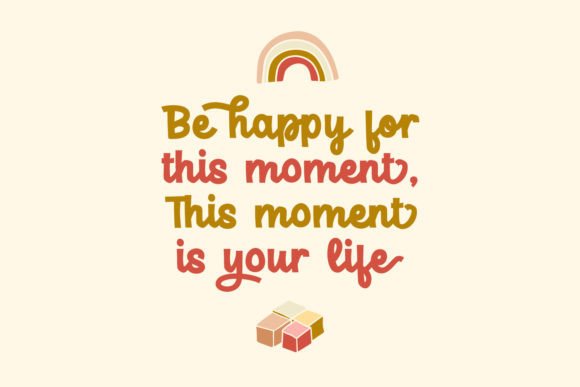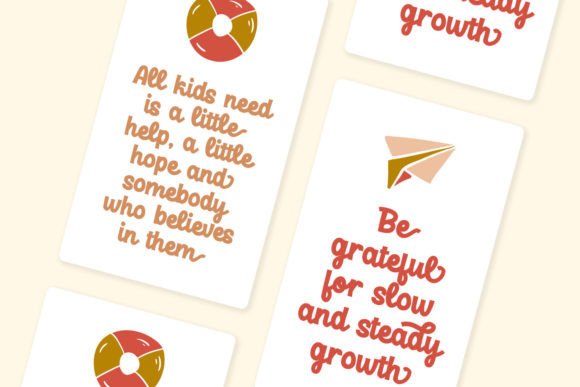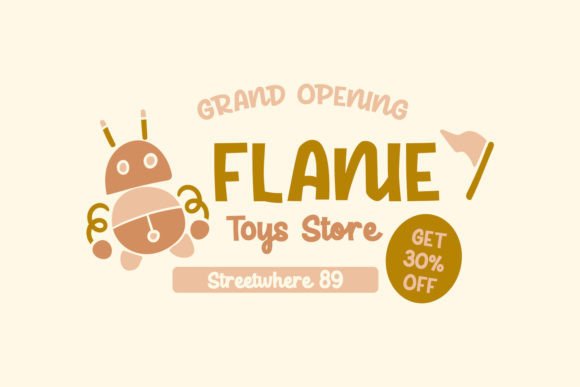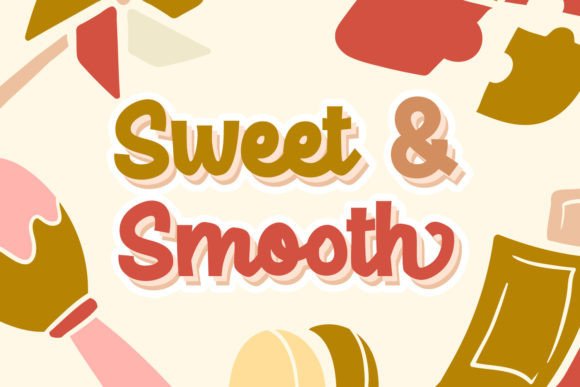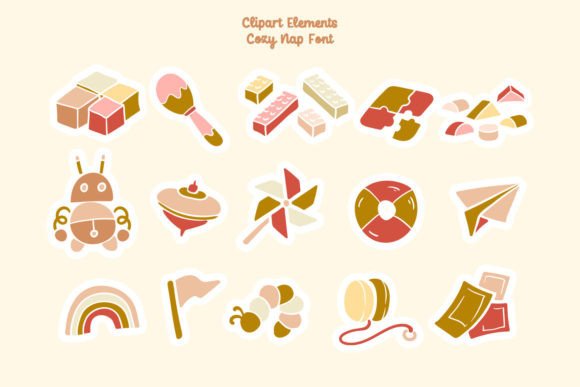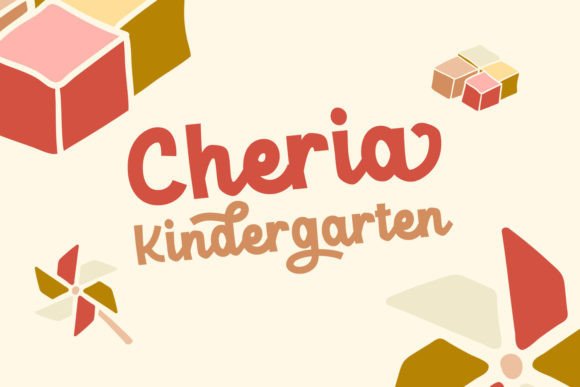
Introducing Cozy Nap Font: The Ultimate Display Font for Creative Projects
Are you tired of using the same old fonts for your creative projects? Look no further than Cozy Nap Font, a charming display font that’s perfect for adding a touch of whimsy to your designs. With its dramatic bold and heavy styles, Cozy Nap Font is ideal for use in headers, titles, and other display text. But what really sets it apart is its unique blend of readability and cuteness.
The Characteristics of Cozy Nap Font
Cozy Nap Font is a carefully crafted display font that boasts a range of characteristics that make it perfect for creative projects. Here are just a few of its standout features:
- Dramatic bold and heavy styles: Cozy Nap Font’s bold and heavy styles make it perfect for use in headers and titles, where you want to grab the reader’s attention.
- Easy to read: Despite its bold and heavy styles, Cozy Nap Font is surprisingly easy to read, making it perfect for use in a variety of creative projects.
- Curvy characters: Cozy Nap Font also features a range of curvy characters that add a touch of cuteness to your designs.
- Illustrations as extras: What really sets Cozy Nap Font apart is the inclusion of illustrations as extras. These can be used to add an extra layer of visual interest to your designs.
Why Designers and Crafters Love Cozy Nap Font
Cozy Nap Font has quickly become a favorite among designers and crafters, and it’s easy to see why. Here are just a few reasons why:
- Perfect for creative projects: Cozy Nap Font is perfect for use in a variety of creative projects, from crafting and scrapbooking to graphic design and digital art.
- Adds a touch of whimsy: Cozy Nap Font’s unique blend of bold and curvy characters adds a touch of whimsy to your designs, making them stand out from the crowd.
- Easily customizable: Cozy Nap Font is easily customizable, making it perfect for use in a variety of different design contexts.
- Includes illustrations: The inclusion of illustrations as extras is a major bonus for designers and crafters, who can use them to add an extra layer of visual interest to their designs.
How to Use Cozy Nap Font in Your Designs
Cozy Nap Font is a versatile display font that can be used in a variety of different design contexts. Here are just a few ideas to get you started:
- Headers and titles: Cozy Nap Font’s bold and heavy styles make it perfect for use in headers and titles, where you want to grab the reader’s attention.
- Scrapbooking and crafting: Cozy Nap Font is a natural fit for scrapbooking and crafting projects, where its unique blend of bold and curvy characters can add a touch of whimsy.
- Graphic design: Cozy Nap Font can also be used in graphic design projects, such as posters, flyers, and brochures.
- Digital art: Cozy Nap Font can even be used in digital art projects, such as illustrations and animations.
Cozy Nap Font is a charming display font that’s perfect for adding a touch of whimsy to your creative projects. With its dramatic bold and heavy styles, easy readability, and curvy characters, it’s a natural fit for a variety of design contexts. And with illustrations as extras, you can add an extra layer of visual interest to your designs. Whether you’re a designer, crafter, or digital artist, Cozy Nap Font is a must-have font for your toolkit.